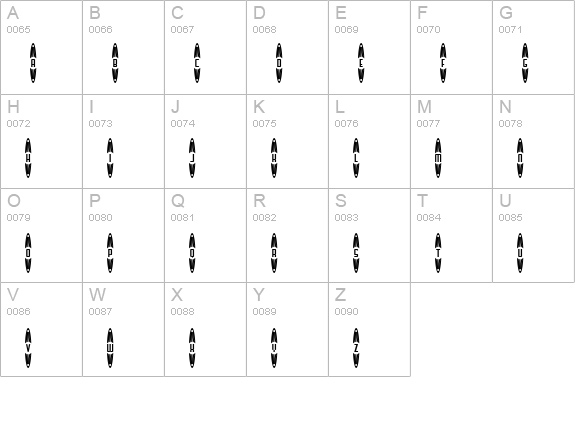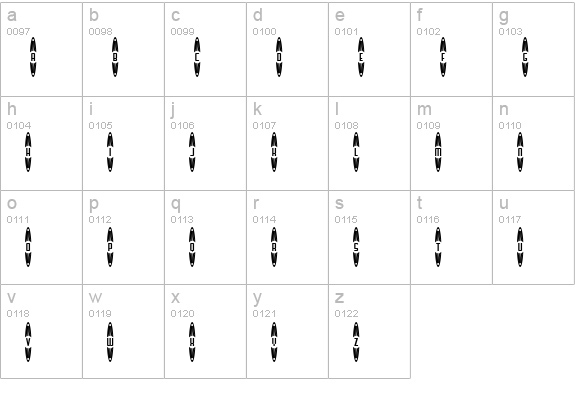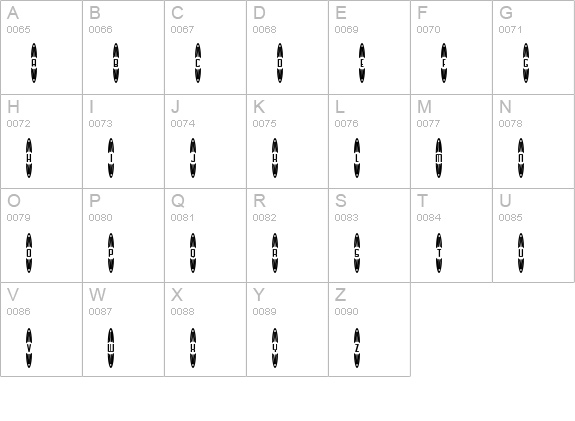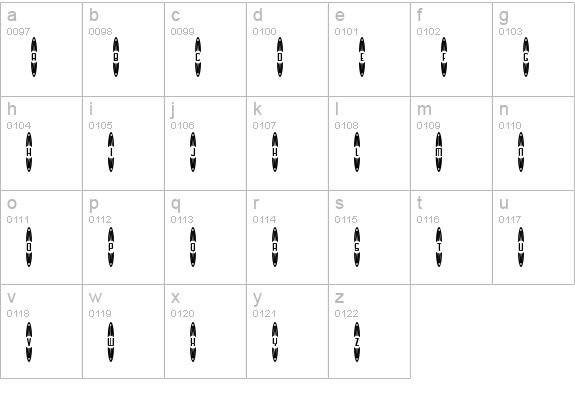
Jackrabbit's Bar & Grill Font Details
Introducing the captivating and charismatic Jackrabbit's Bar & Grill font! This extraordinary typeface brings a touch of boldness and sophistication to any design project. With its sleek lines and distinctive curves, Jackrabbit's Bar & Grill font exudes an undeniable charm that will effortlessly elevate your branding, advertisements, packaging, and more. But what sets this font apart from the rest? It's the incredible fact that it is available for free! Yes, you read that right. Jackrabbit's Bar & Grill font is freely available to download at FontsMarket.com. So not only can you enjoy the stunning aesthetics of this font, but you can also do so without breaking your budget. Whether you're a professional designer seeking to add a touch of elegance to your creations or a small business owner looking to revamp your marketing materials, Jackrabbit's Bar & Grill font is the perfect choice. Its versatility allows it to seamlessly integrate into a wide range of projects, making it a valuable asset for any creative endeavor. Let your imagination run wild as you explore the countless possibilities this font offers. From eye-catching headlines to stylish logos, Jackrabbit's Bar & Grill font will effortlessly capture attention and leave a lasting impression. Its meticulous design and attention to detail make it a true standout in the world of typography. So why wait? Head over to FontsMarket.com today and download Jackrabbit's Bar & Grill font for free. Experience the power of this extraordinary typeface and unlock a world of unlimited creativity. Don't miss out on this incredible opportunity to enhance your designs with a font that combines style, elegance, and affordability. Embrace the free-spirited nature of Jackrabbit's Bar & Grill font and watch your designs come to life.